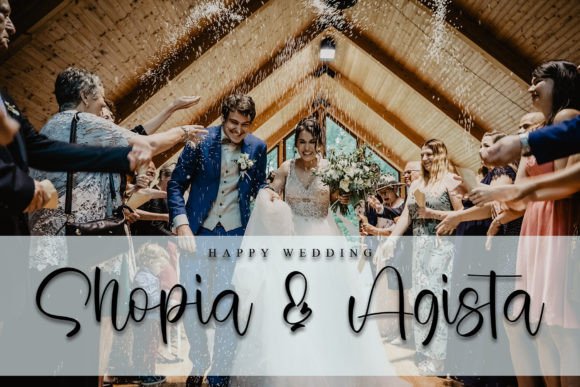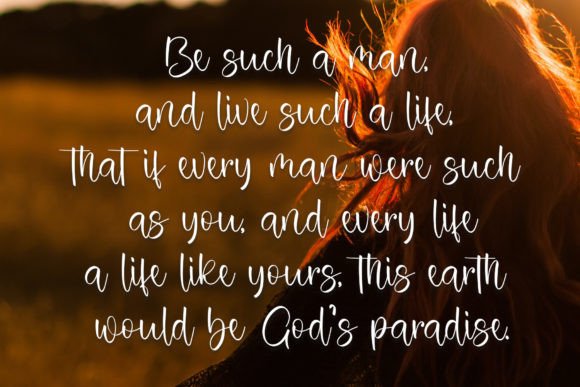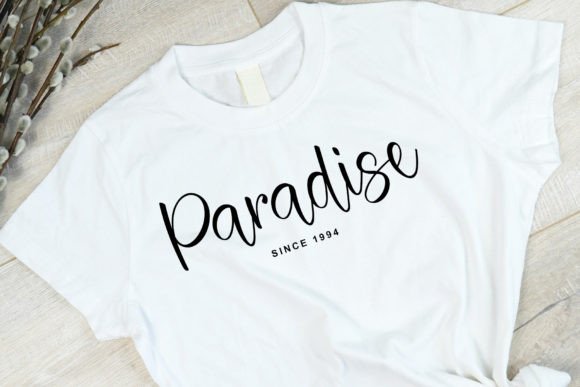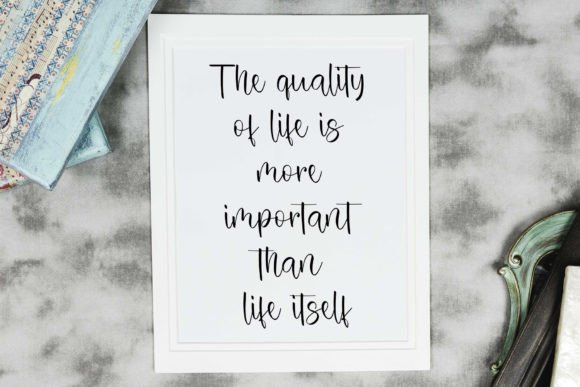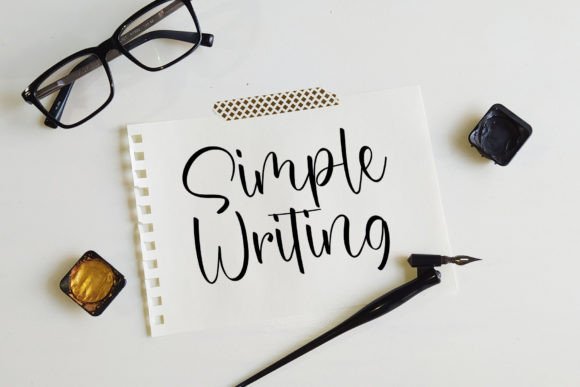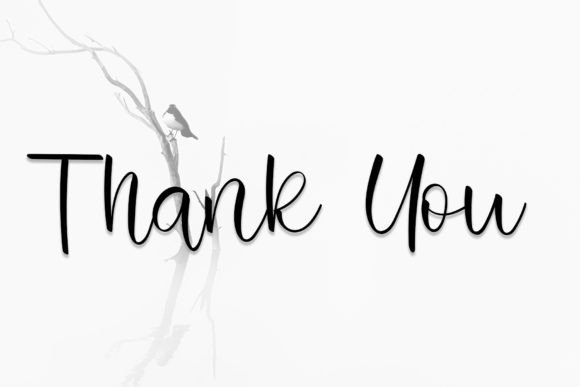
Unleash Your Creativity with Animal Font: A Playfully Handmade Display Font
Are you tired of using the same old fonts in your designs? Do you want to add a touch of playfulness and whimsy to your creative projects? Look no further than Animal Font, a beautifully crafted handwritten font that is sure to bring a smile to your face. In this article, we’ll take a closer look at what makes Animal Font so special and how you can use it to take your designs to the next level.
What is Animal Font?
Animal Font is a display font that has been masterfully designed to deliver an incredibly playful and handmade feel. With its unique and quirky characters, this font is perfect for adding a touch of personality to any design project. Whether you’re working on a logo, a poster, a website, or a social media graphic, Animal Font is sure to make your design stand out from the crowd.
The Benefits of Using Animal Font
So why choose Animal Font over other fonts? Here are just a few benefits of using this amazing display font:
- Playful and Whimsical: Animal Font has a playful and whimsical feel that’s perfect for designs that need a bit of personality.
- Handmade Look: The font has a beautifully handmade look that’s sure to add a touch of warmth and character to your designs.
- Versatile: Animal Font can be used for a wide range of design projects, from logos and posters to websites and social media graphics.
- Easy to Read: Despite its playful feel, Animal Font is easy to read and understand, making it perfect for designs that need to communicate a message.
How to Use Animal Font in Your Designs
Using Animal Font in your designs is easy. Here are a few tips to get you started:
- Pair it with Other Fonts: Animal Font works well when paired with other fonts, so don’t be afraid to experiment with different combinations.
- Use it for Headlines: The font’s playful feel makes it perfect for headlines and titles, where you want to grab the reader’s attention.
- Add some Color: Animal Font looks great in a variety of colors, so don’t be afraid to experiment with different hues and shades.
- Experiment with Different Sizes: The font’s versatility means it can be used at a range of different sizes, from small text to large headlines.
Who is Animal Font for?
Animal Font is perfect for designers, crafters, and anyone who wants to add a touch of playfulness to their designs. Here are a few examples of who might benefit from using this amazing font:
- Graphic Designers: Animal Font is perfect for graphic designers who want to add a touch of personality to their designs.
- Crafters: Crafters who want to create handmade-style designs will love the font’s playful and whimsical feel.
- Small Business Owners: Small business owners who want to create a unique and memorable brand identity will love Animal Font.
In conclusion, Animal Font is an amazing display font that is sure to bring a touch of playfulness and whimsy to your designs. With its unique and quirky characters, handmade look, and versatility, this font is perfect for designers, crafters, and anyone who wants to add a bit of personality to their creative projects. So why not give Animal Font a try today and see how it can help take your designs to the next level?
Whether you’re working on a logo, a poster, a website, or a social media graphic, Animal Font is the perfect choice. So go ahead, get creative, and have fun with Animal Font!